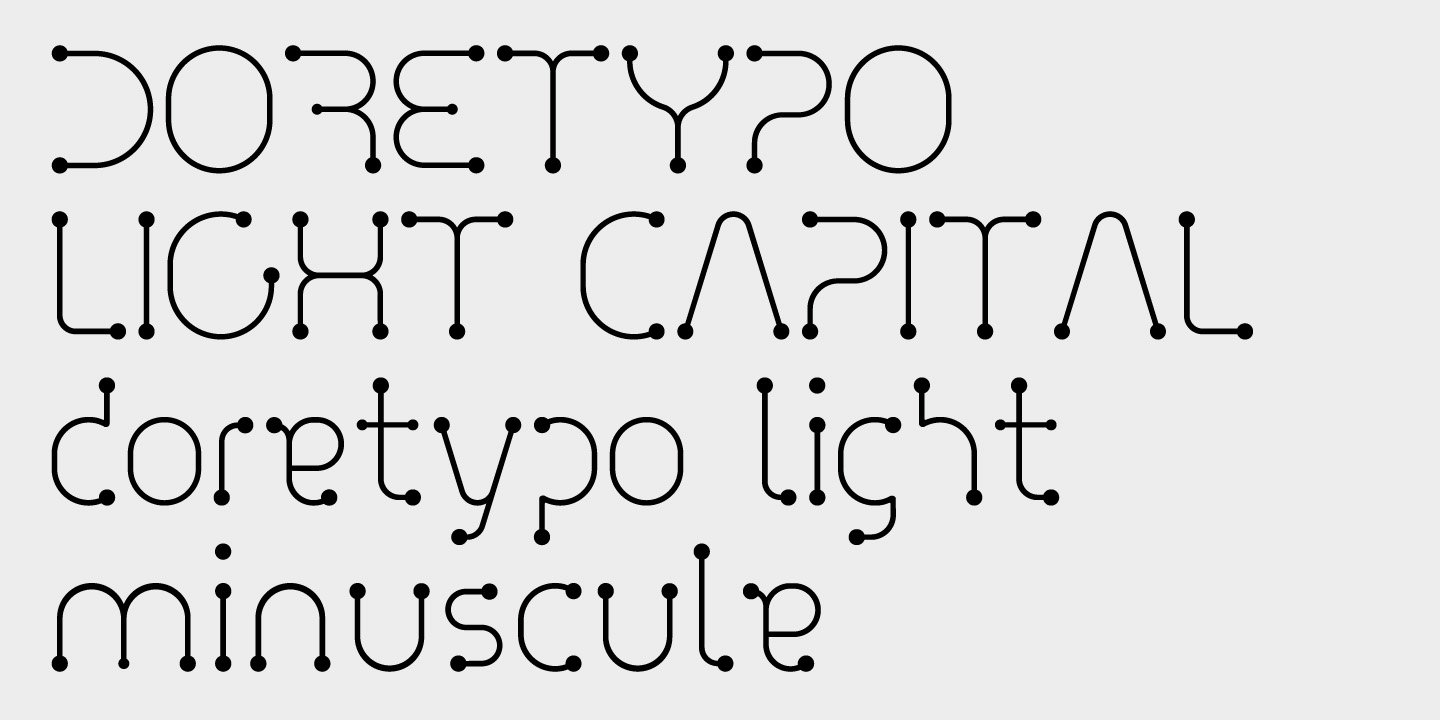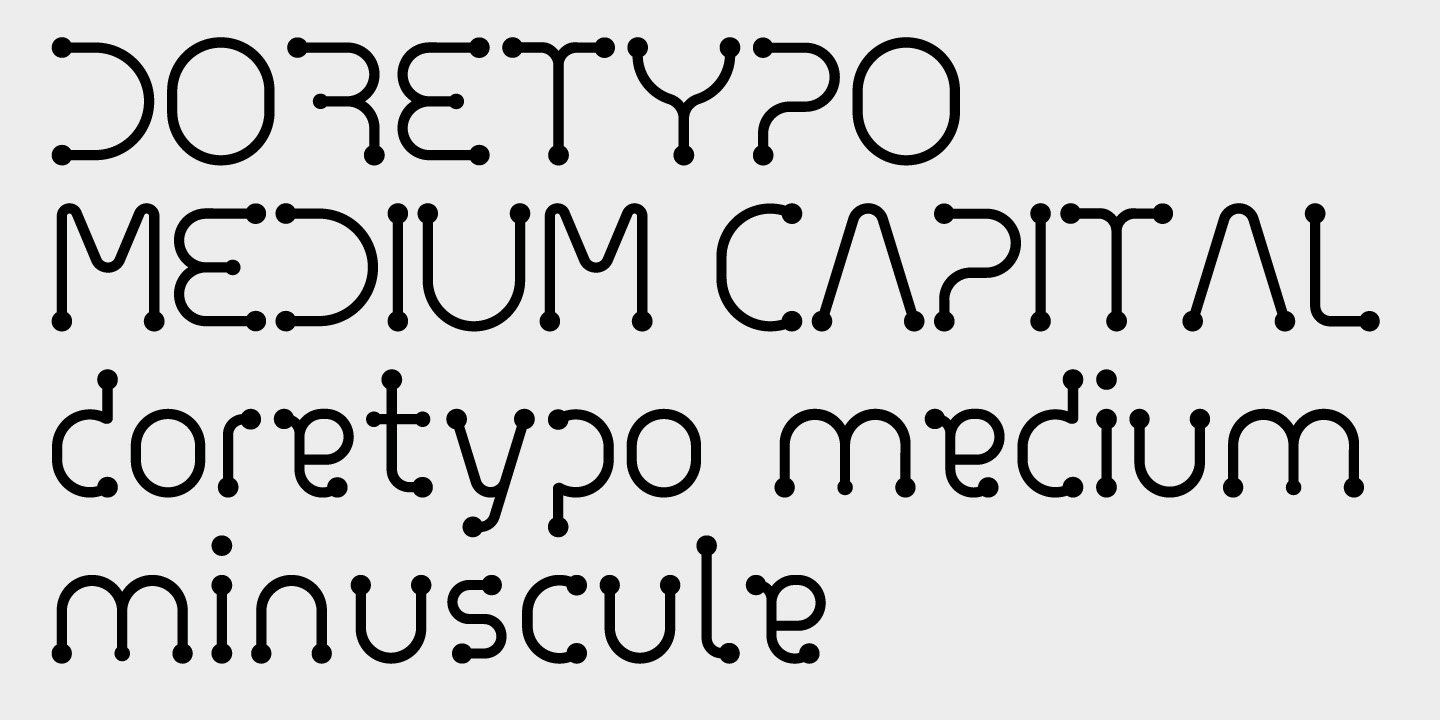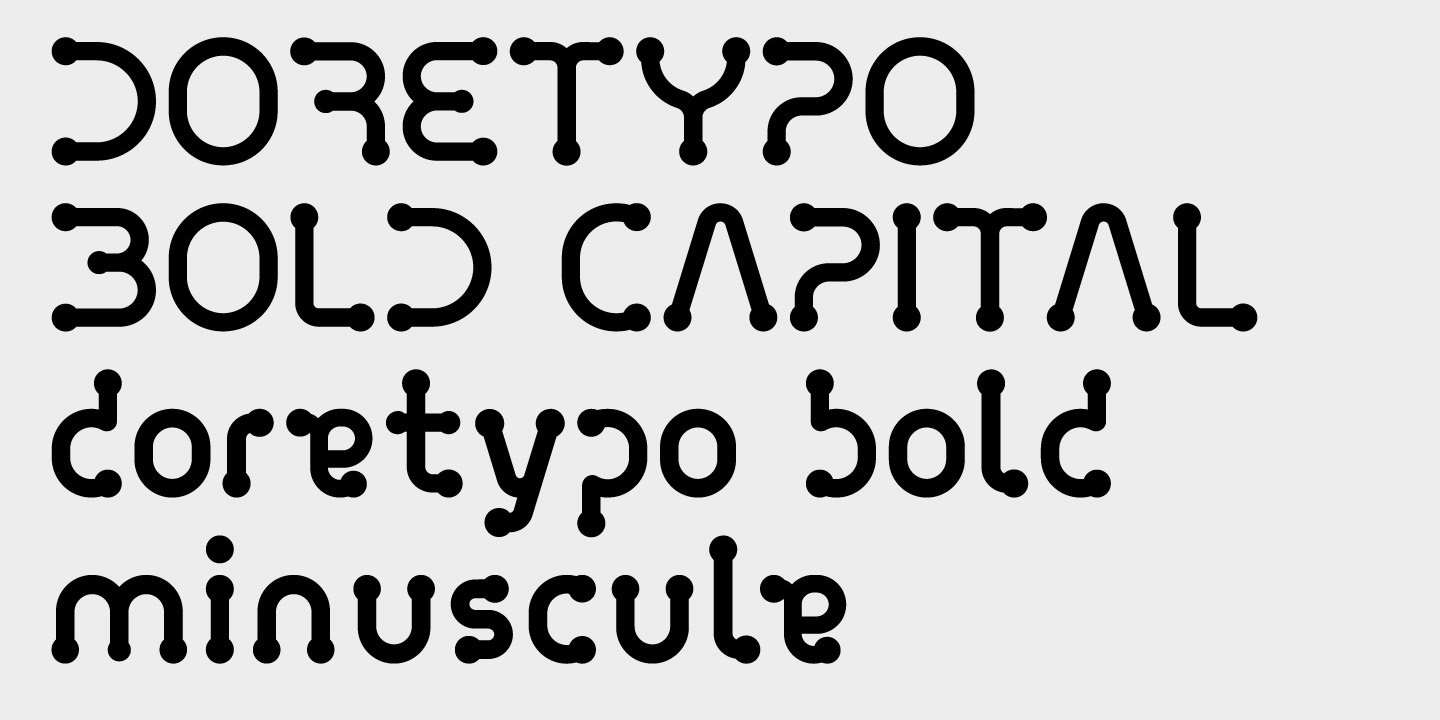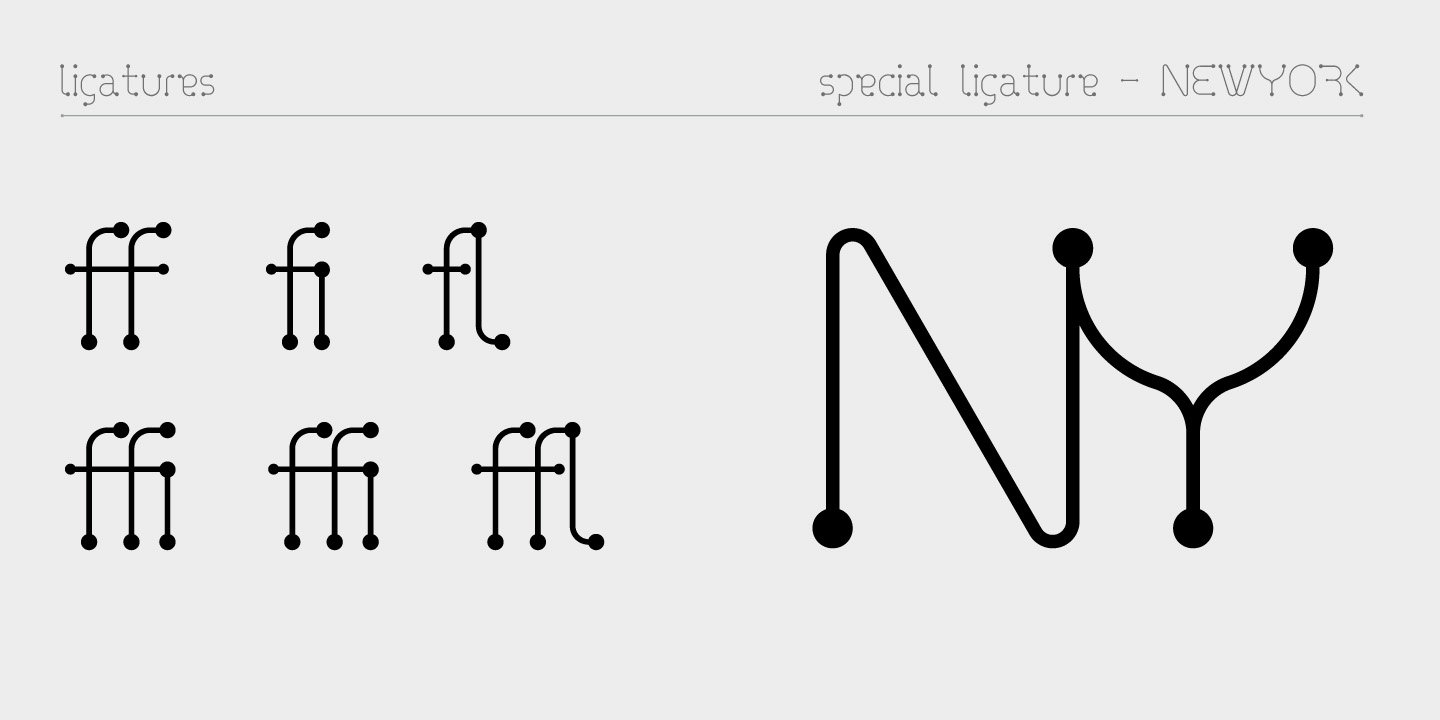
Doretypo
Font Family by Rosario Nocera
Doretypo was born accidentally, during the design of a poster for a jazz festival in Rome. I was going to realize a typesetting, but I could not find the right character and decided to draw the letters I needed, starting from the first letter of the headline, capital M.
I was looking for a lettering able to evoke musical notes, where each letter could be linked to the following one, to the previous one, to the largest at the top and the smallest at the bottom. From this idea doretypo came to life gradually. In the beginning there were a few medium capital letters with very few glyphs, but given the good results I decided to decline in light and bold, integrating minuscule letters, for a whole of 374 glyphs.
Today Doretypo OpenType is a family of fonts with three weights, 374 glyphs, supporting about 57 languages, ligatures standard, plus a new "NY". Moreover, each glyph can be used individually to create textures and graphic symbols.